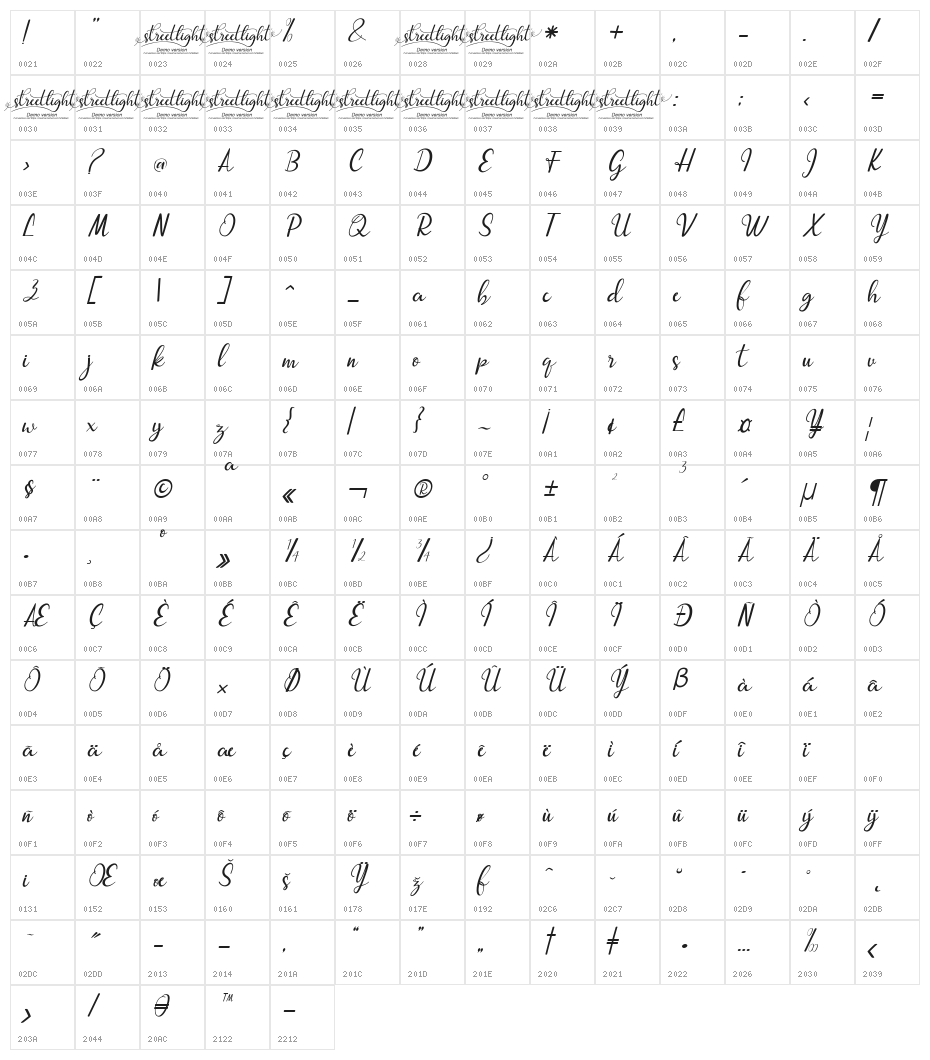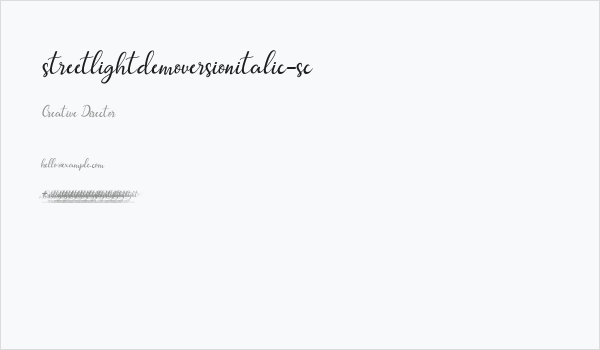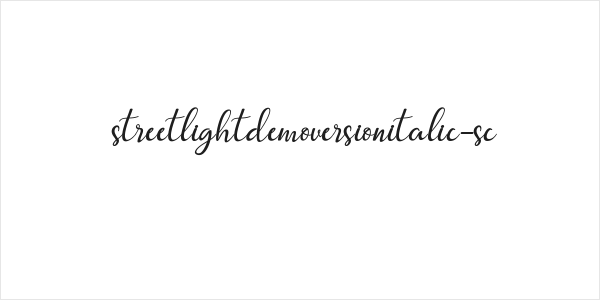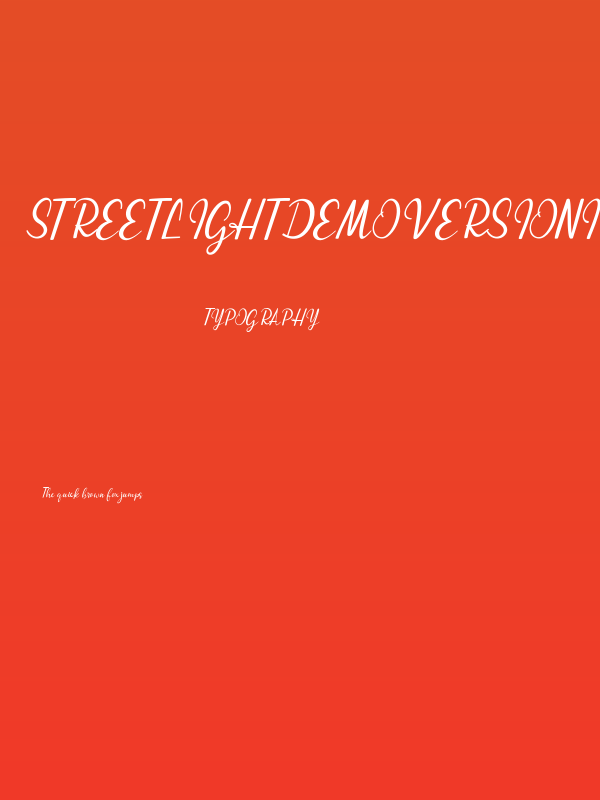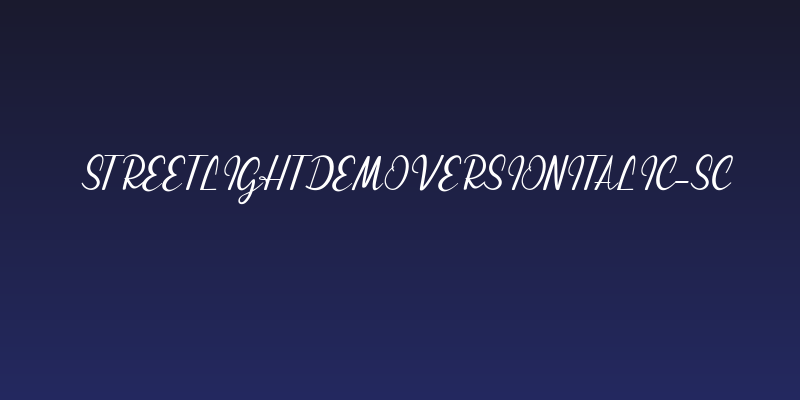
streetlightdemoversionitalic-sc Font
streetlightdemoversionitalic-sc Description
This font features an elegant and flowing script style, characterized by its italicized and cursive letterforms. The uppercase letters are tall and slightly slanted, with graceful curves and loops that give a sense of motion and fluidity. The lowercase letters maintain a consistent style, with smooth connections between characters, enhancing the font's readability despite its decorative nature. The numerals and special characters follow the same stylistic cues, ensuring a cohesive look across all text. This font exudes a sense of sophistication and artistic flair, making it suitable for creative and formal applications.
Overall StyleElegant, Decorative
Use CaseLogos, Invitations, Greeting Cards
Proposed ProjectsIdeal for wedding invitations, greeting cards, logos, and branding materials that require a touch of elegance and sophistication.